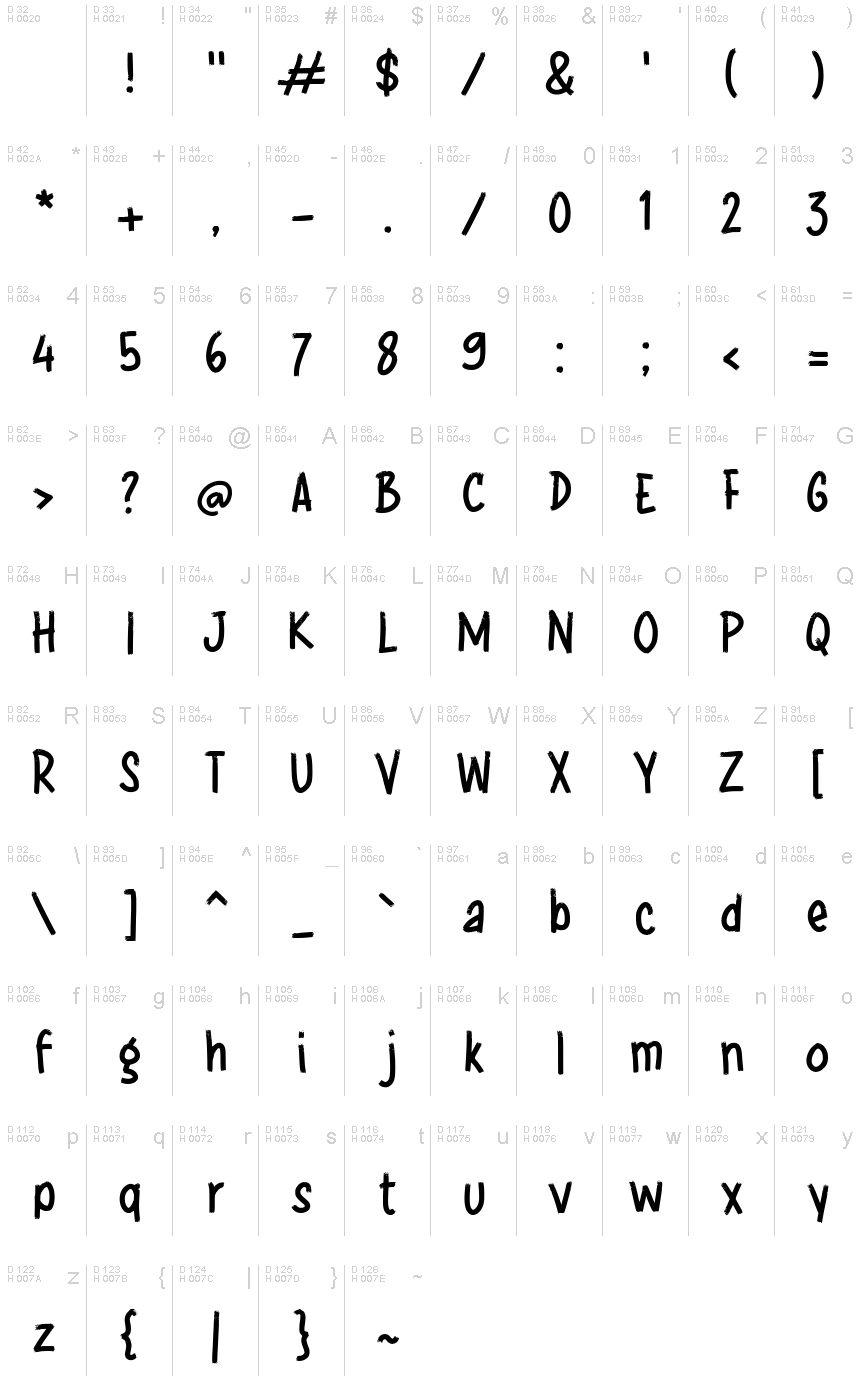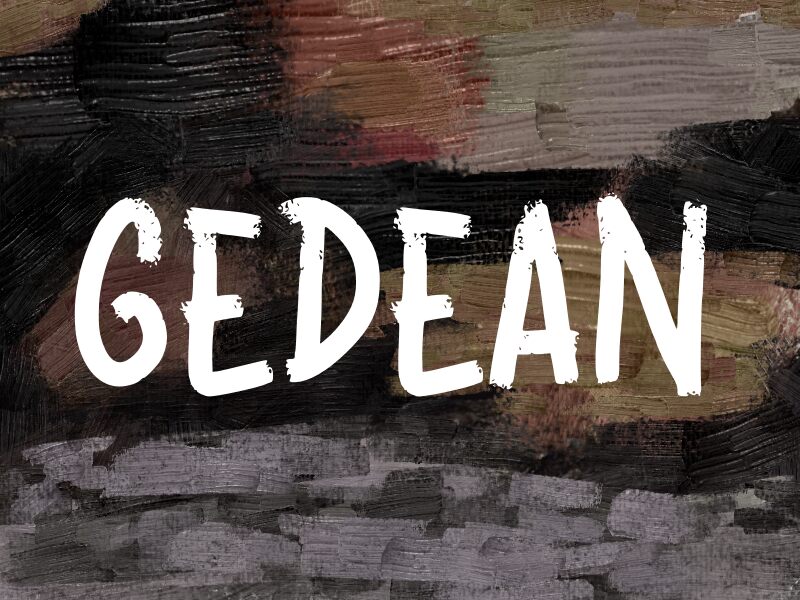
GEDEAN
Gedean by wep is a captivating brush font that exudes a bold, dynamic, and expressive aesthetic. Its sweeping, organic strokes and a touch of distress create a sense of raw energy and movement, evoking a sense of spontaneity and artistic flair. The condensed width of the font adds a distinct, impactful presence, making it a visually striking choice for various design applications.
This versatile font lends itself well to a wide range of creative projects, from eye-catching headlines and logos to dynamic packaging designs and editorial pieces. Its versatility and unique character make it an excellent option for brands or designers seeking to create a memorable, attention-grabbing visual identity that stands out from the crowd.